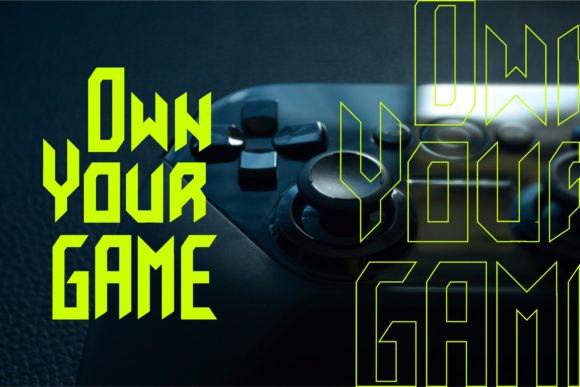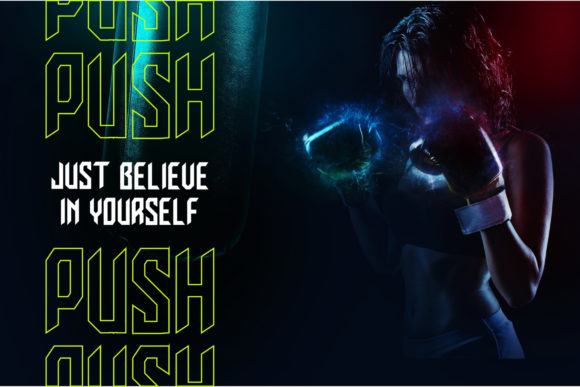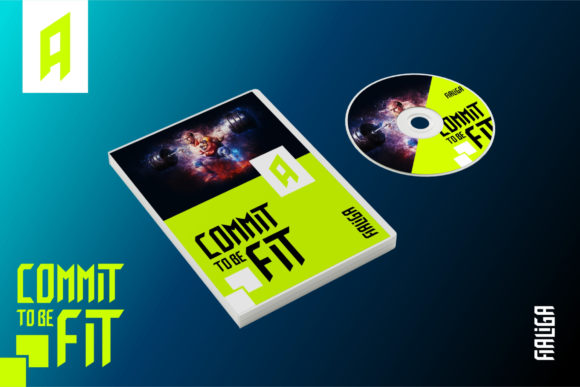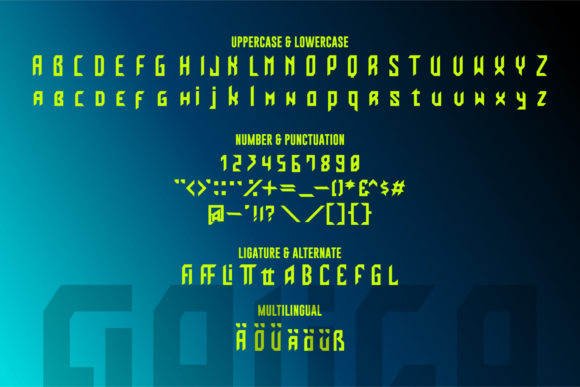
Introduction to Fialiga Font
Fialiga is a unique, contemporary sans serif font.
Use it to add that special touch to any design idea you can think of .
Key Features of Fialiga Font
Why Choose Fialiga Font?
Fialiga Font offers exceptional quality and versatility, making it a valuable addition to your design toolkit. Whether you’re creating for personal projects or commercial use, Fialiga Font delivers professional results.